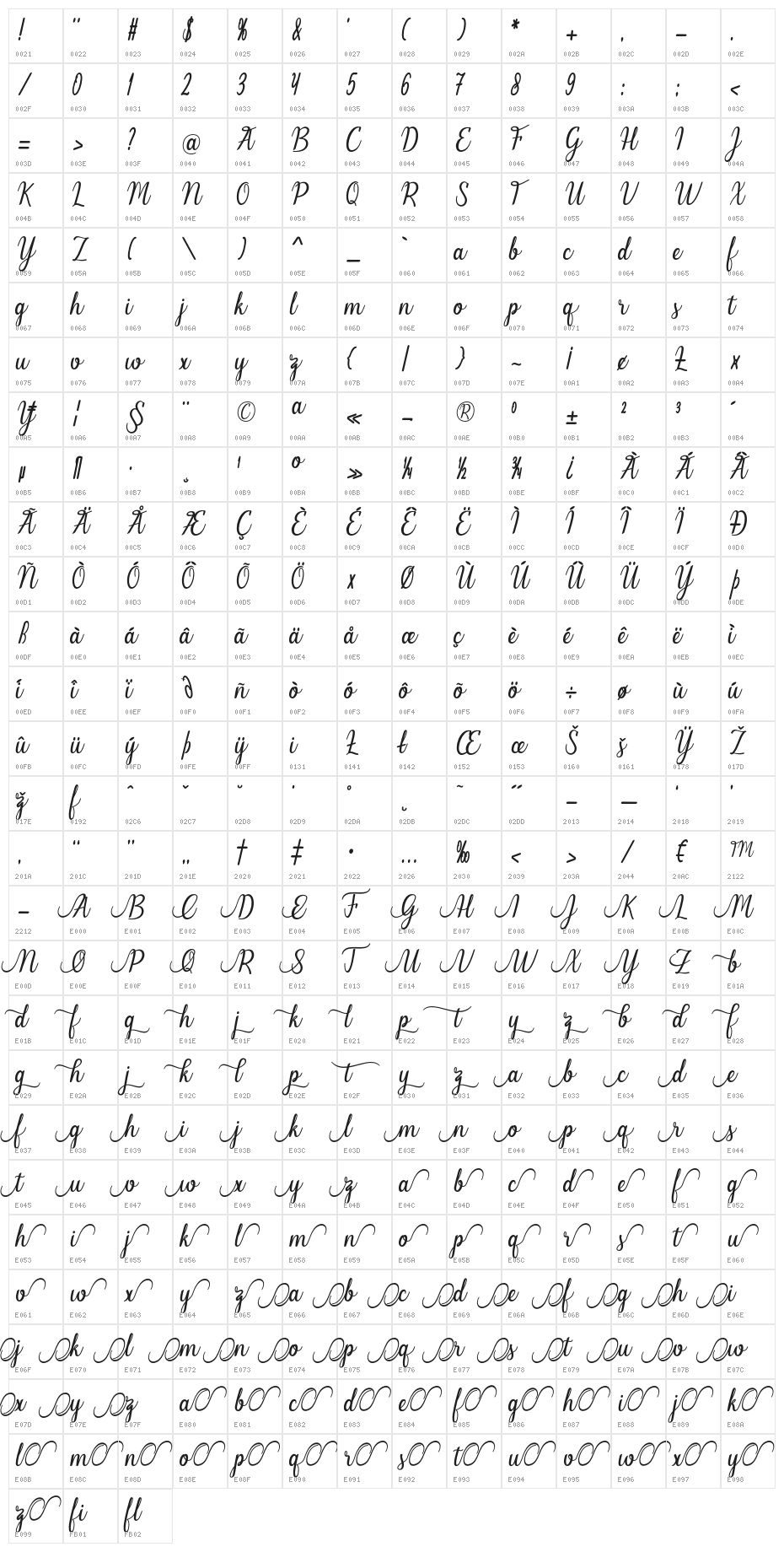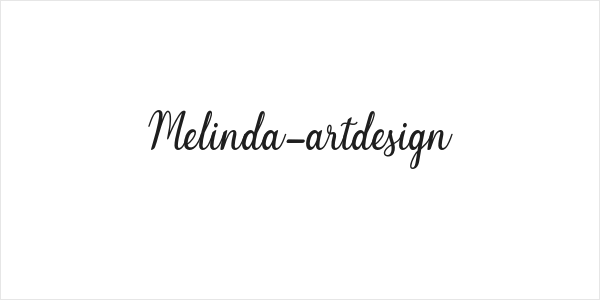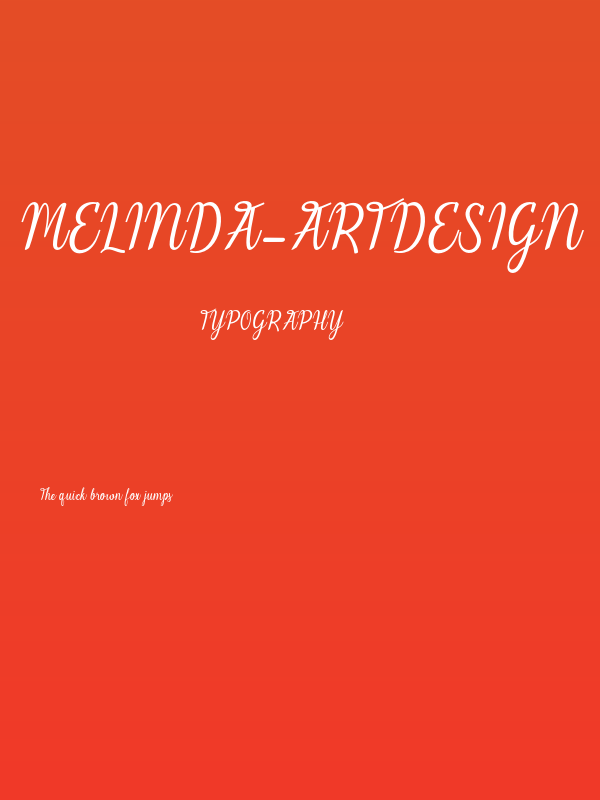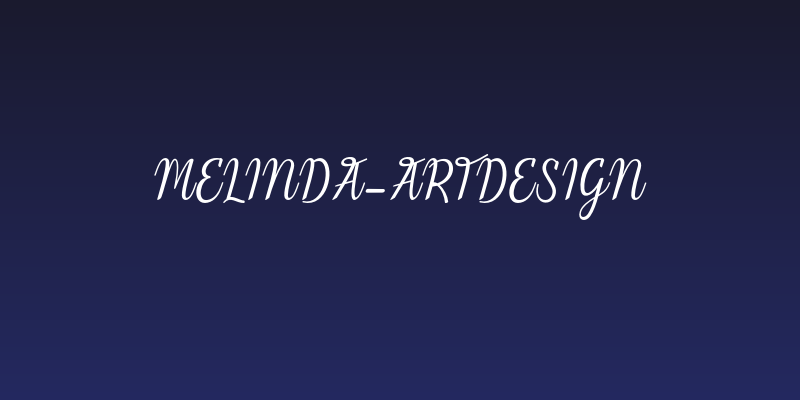
Melinda-artdesign Font
Melinda-artdesign Description
This font exudes a classic and elegant script style, characterized by its flowing and connected letterforms. The uppercase letters are tall and graceful, with a slight slant that adds a touch of sophistication. The lowercase letters maintain a consistent flow, enhancing readability while preserving the script's artistic flair. Numbers and special characters are designed to complement the overall aesthetic, ensuring a cohesive look across all text elements. The font's smooth curves and balanced proportions make it suitable for a variety of design applications.
Overall StyleClassic
Use CaseLogos, Invitations, Decorative text
Proposed ProjectsIdeal for wedding invitations, greeting cards, branding projects, and elegant packaging designs.